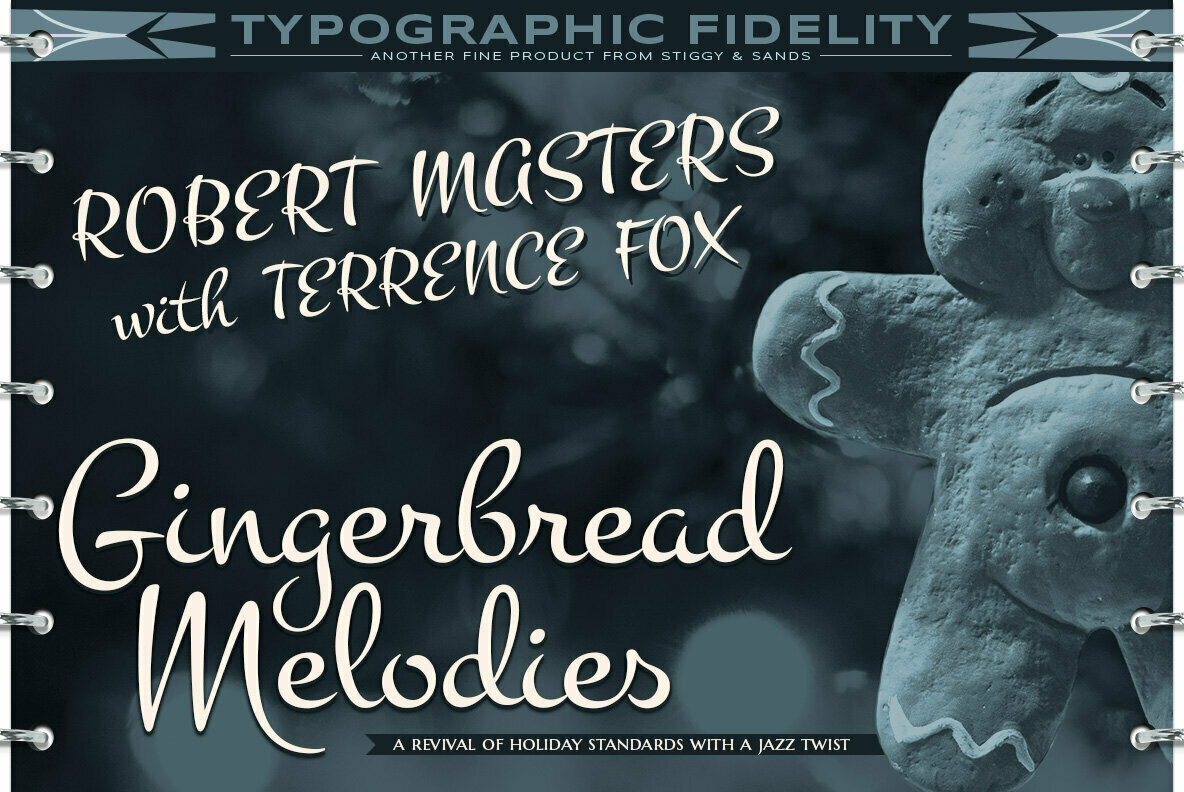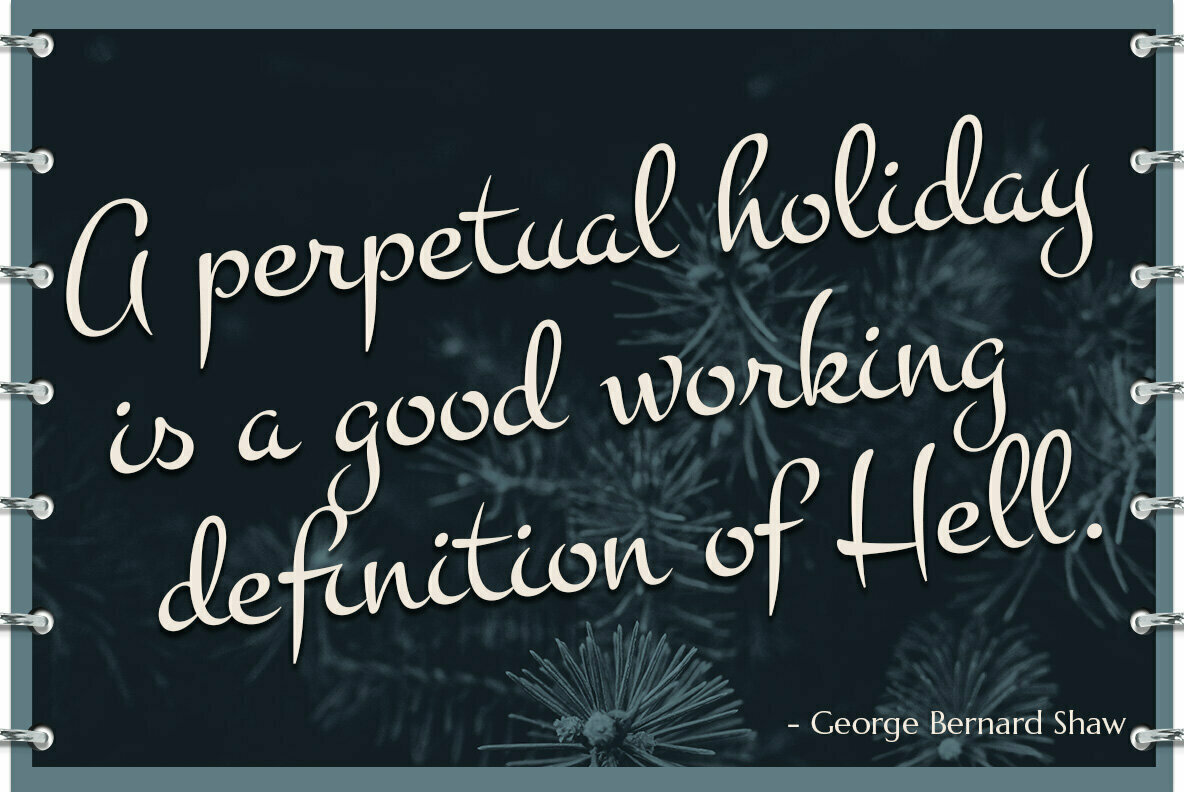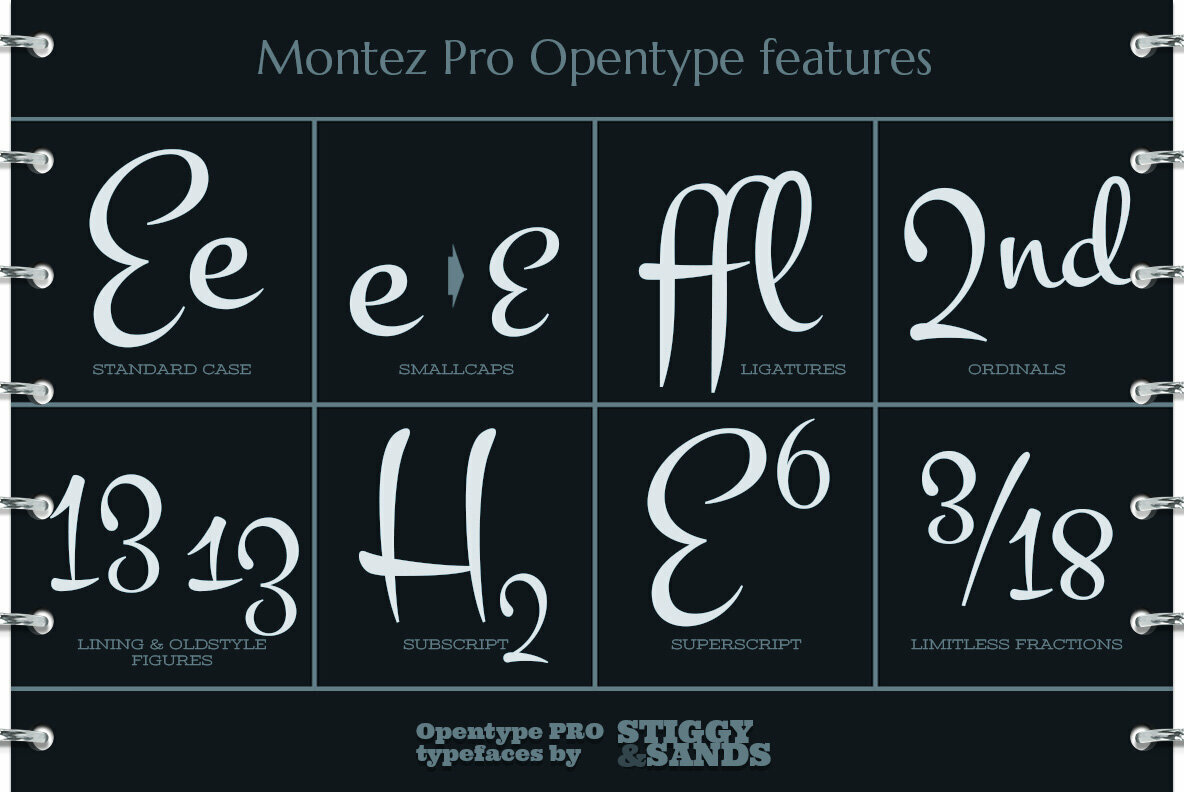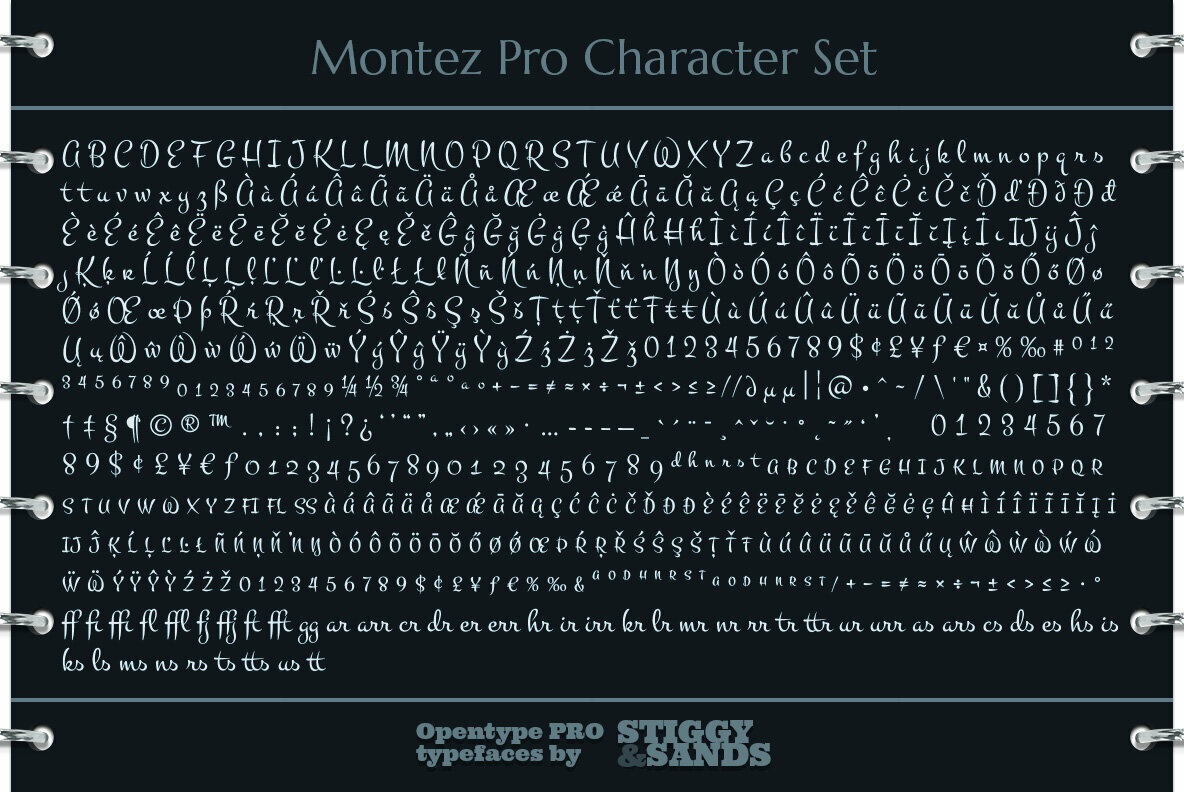
Montez Pro
Straight from the beauty product ads of the 1960's comes Montez Pro, full of sweeping strokes which lend to a feeling of joy and elegance throughout its letterforms. It is the ideal font for display uses that require a little drama, "joie de vivre" or Joy of Life.
The stylings of the standard typeset Montez Pro lend itself to holiday and celebration designs most effectively. And while it is usually a typographic no-no to set a script in all capitals, Montez Pro contains a small caps feature that has specially redesigned capitals that allow an appealing all capitals setting.
Montez Pro is loaded with features to give you plenty of customisation options:
Stylistic Alternates offer variations of the L, t, and w-smallcap characters
Small Caps offer tailored back and normalized short capitals
44 Ligatures to make typesetting more interesting
A Full set of Inferiors and Superiors for Limitless Fractions
Proportional and Oldstyle numeral sets